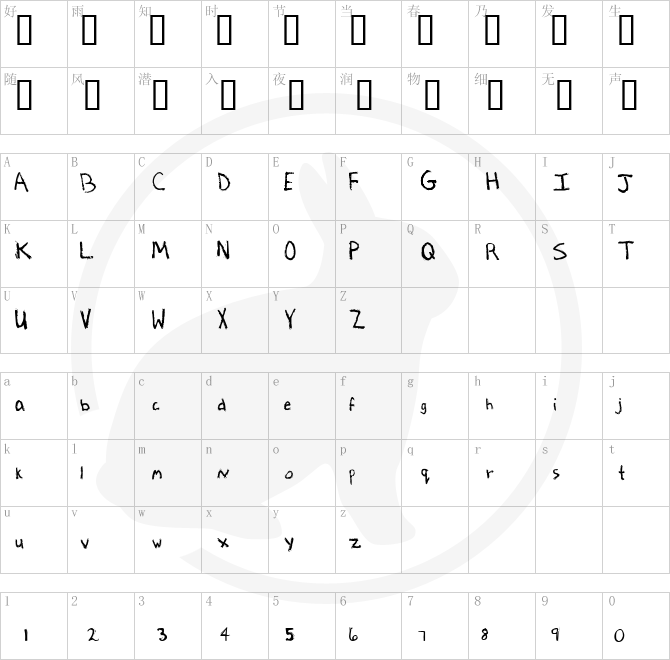
- Font Name:Lactose Intolerant
Lactose-Intolerant.ttf is a very beautiful artistic font, Lactose-Intolerant.ttf is widely used in the design and printing of various books and pictures,Lactose-Intolerant.ttf has a strong visual impact,Lactose-Intolerant.ttf is a commonly used font in newspapers, magazines and books, and is used in posters, e-commerce Poster design, store design, logo design, font design and other fields.Lactose-Intolerant.